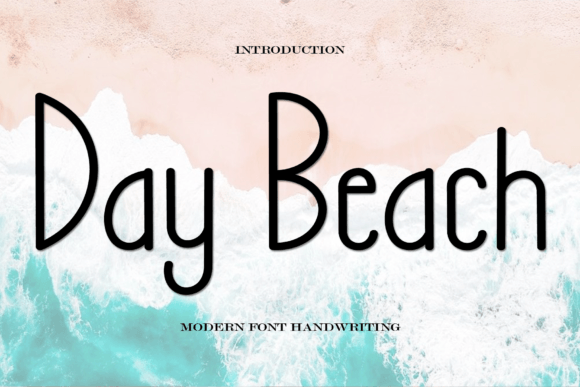
Lose yourself in the captivating beauty of Day Beach Font, a script-style font that's like a breath of fresh air. From the creative minds at RR Studio, this font exudes a classic simplicity that's both timeless and effortlessly stylish.
As versatile as the shoreline it's named after, Day Beach can transform your designs into masterpieces, whether you're crafting heartfelt emails, eye-catching presentations, or designing invitations that leave a lasting impression. Its elegant curves and graceful strokes add a touch of whimsy and charm, making it the perfect choice for adding a personal touch to your digital creations.
Picture this: you're composing an email to a client, and you want to leave a lasting impression. With Day Beach, your email signature becomes a work of art, subtly conveying your professionalism and attention to detail. Or, imagine designing a presentation for a major pitch. Day Beach's clean lines and easy readability ensure that your message shines through, leaving a lasting impact on your audience.
Day Beach isn't just a font; it's an experience that captures the essence of coastal living. Its casual elegance evokes images of sandy beaches, crashing waves, and endless horizons. With this font, you'll bring a touch of that coastal charm to everything you create, effortlessly elevating your designs and captivating your audience.